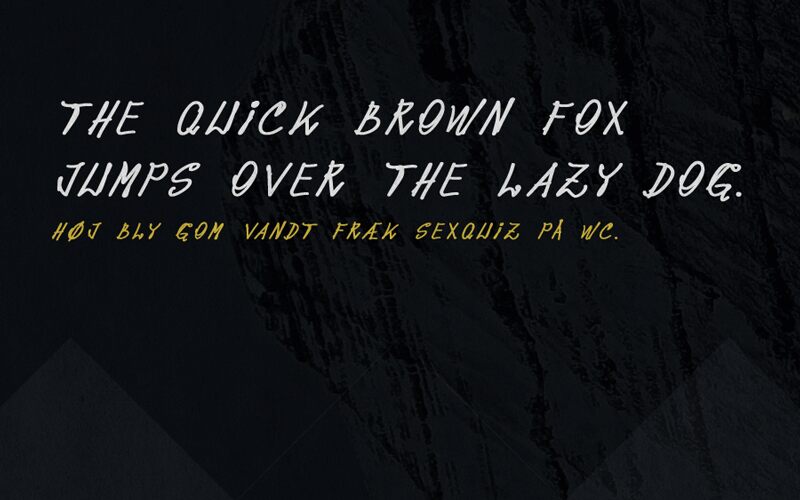
Pops by Smatras is a free handwritten font with tall, loosely drawn letters and a restless signature-like pace. Stroke widths shift abruptly, and the uneven angles, long loops, and occasional overlaps make the writing look quick and uncorrected.
Its wiry lines suit fashion sketches and energetic editorial photography. It can also give music posters, branding, and event graphics a hurried marker-note look. Against torn-paper collage or gestural illustration, the lettering becomes part of the drawing rather than a caption.